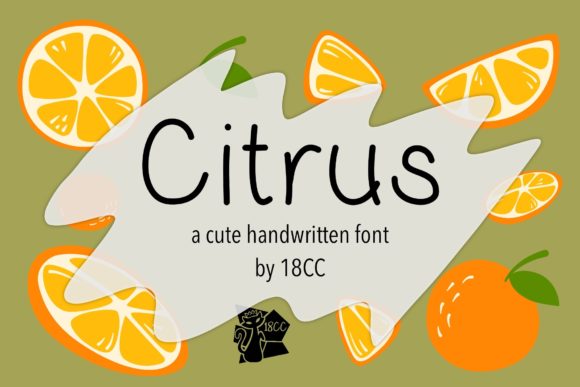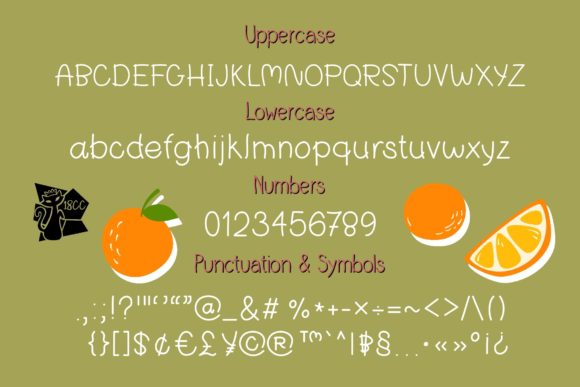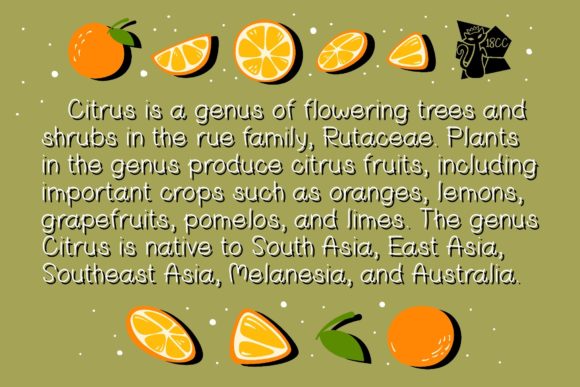
About Citrus Font
CitrusĀ is a cute and simple lettered handwritten font that can be used for all chalkboard quotes or teaching material! Its authentic look will add a personal and realistic feel to your designs.